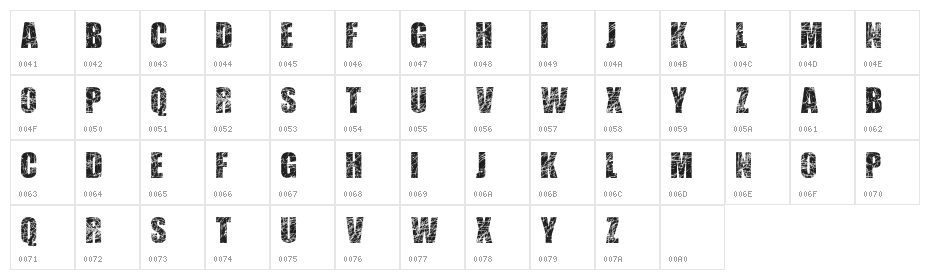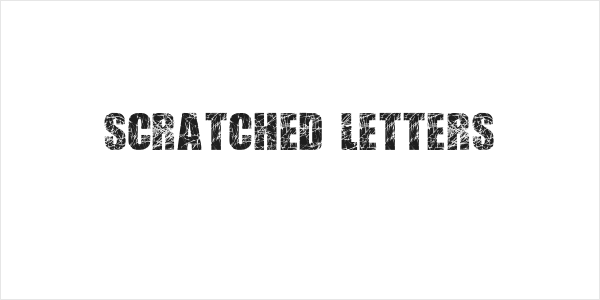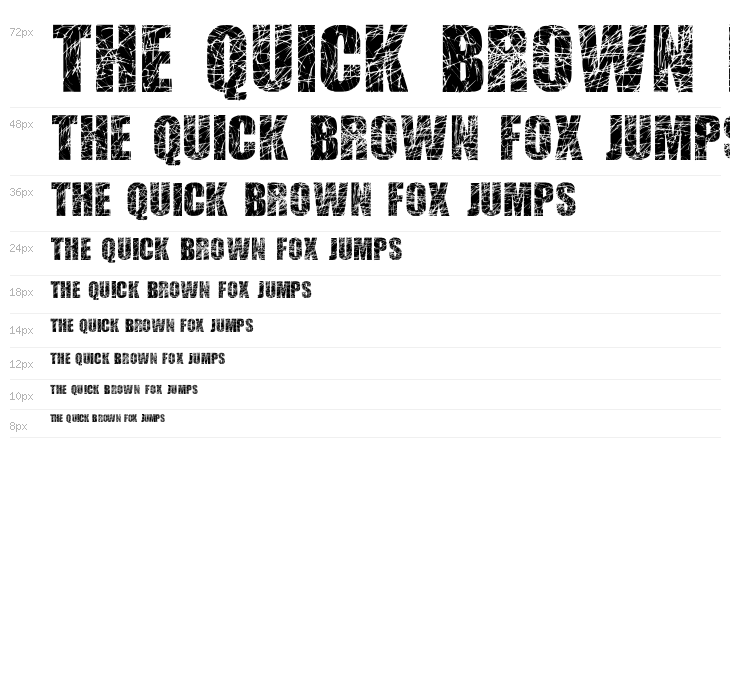
Scratched Letters Font
Scratched Letters Description
This font features a bold and rugged design, characterized by a distressed, scratched texture that gives it a gritty, urban feel. The uppercase letters are uniformly bold, with a consistent width and height, creating a strong visual impact. The scratched effect adds a layer of complexity and depth, making each letter appear unique and dynamic. This style is reminiscent of street art or graffiti, lending an edgy and rebellious vibe. The font's boldness ensures high readability, while the distressed texture adds a creative flair, making it suitable for eye-catching designs.
| Overall Style | Urban, Edgy, Distressed |
| Proposed Projects | Ideal for album covers, posters, streetwear branding, and urban-themed graphics. |